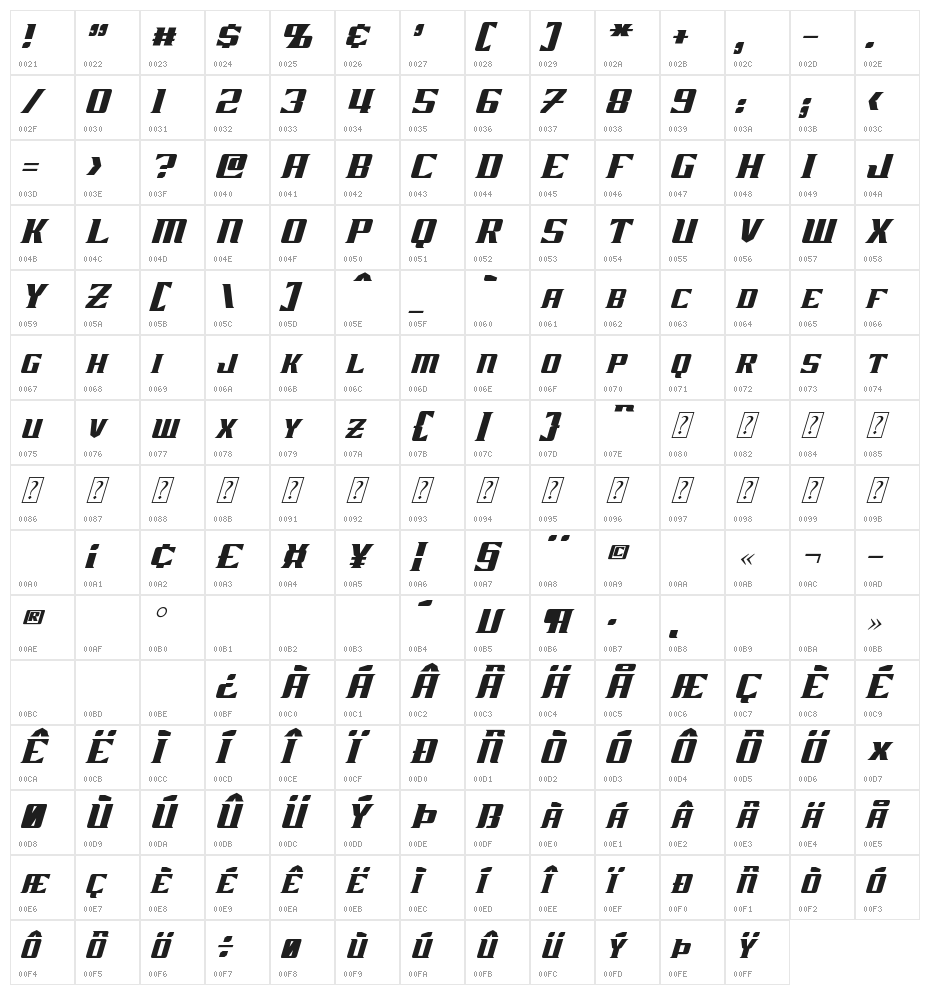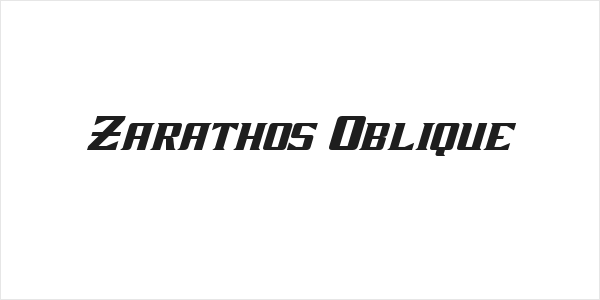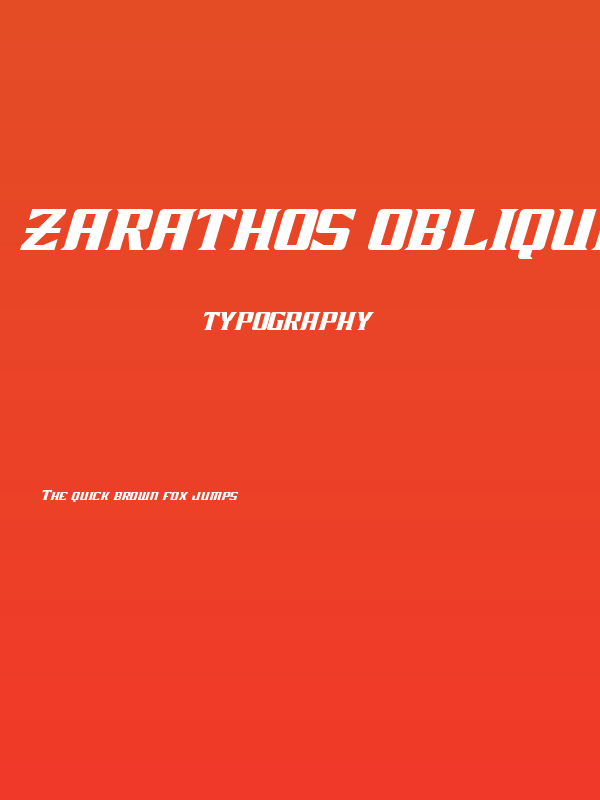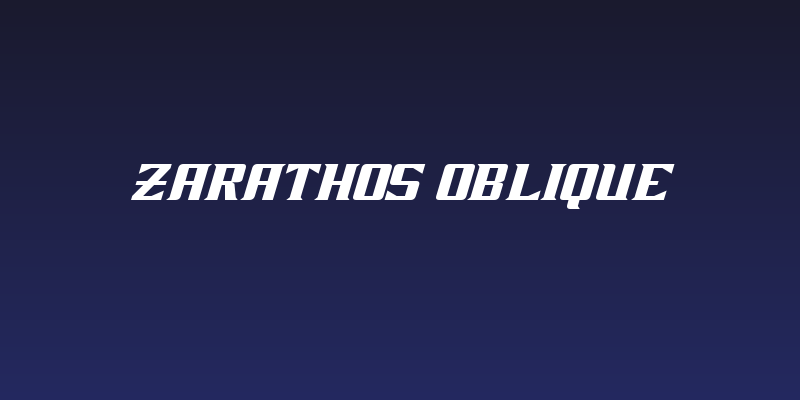
Zarathos Oblique Font
Zarathos Oblique Description
This font features a bold, angular design with a strong oblique slant, giving it a dynamic and energetic appearance. The characters are sharply defined with a consistent stroke width, creating a sense of movement and urgency. The uppercase letters are particularly striking, with their elongated forms and sharp edges. The lowercase letters maintain the same angular style, ensuring uniformity across the typeface. Numbers and special characters are designed with the same boldness and angularity, making them stand out. This font is ideal for projects that require a strong visual impact.
| Proposed Projects | Ideal for sports branding, action movie posters, video game titles, and dynamic advertising campaigns. |